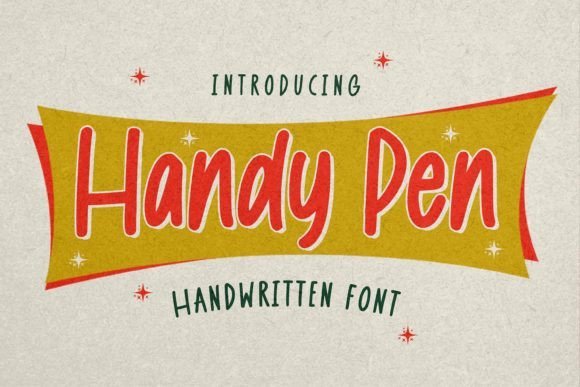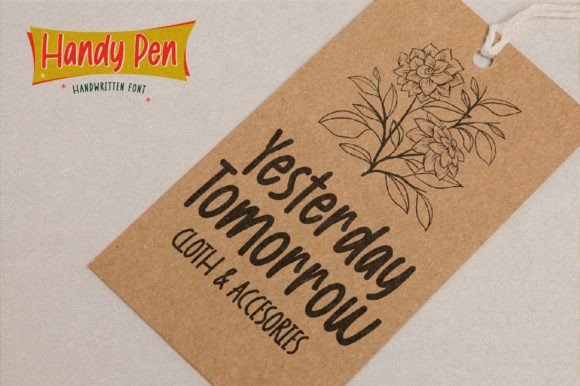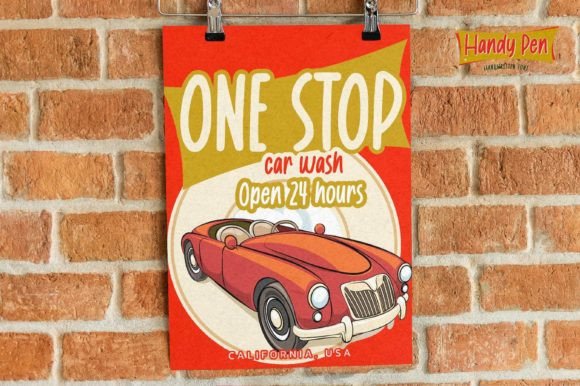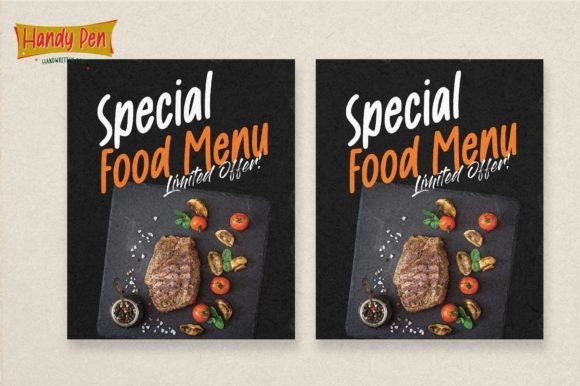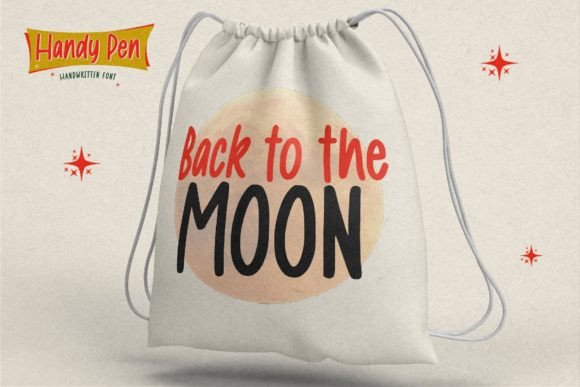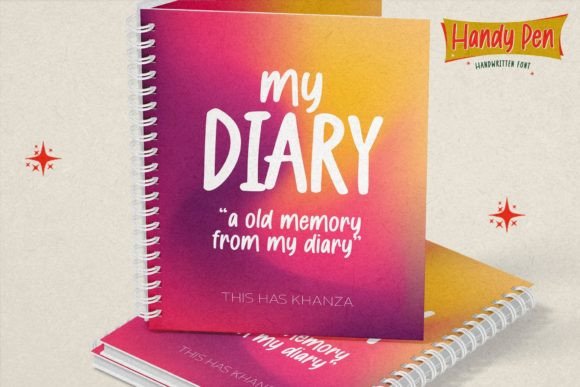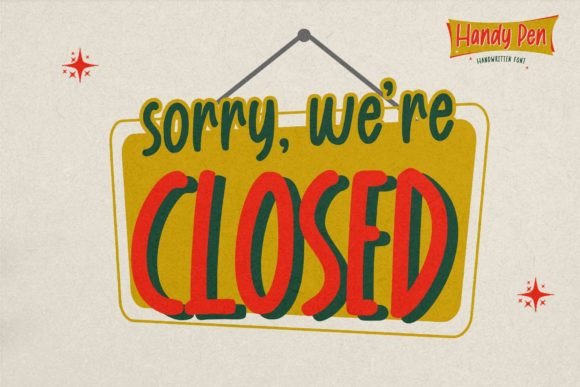
The Perfect Touch of Handwriting in Your Designs
Have you ever been brainstorming for hours, trying to find the perfect font to match your creative vision, only to end up with a generic, mass-produced look that lacks personality? We’ve all been there. But what if I told you there’s a font that can bring a breath of fresh air to your designs, adding a touch of authenticity and warmth that’s impossible to replicate with digital tools?
Meet Handy Pen Font, a naturally textured handwritten font that’s perfect for adding a personal touch to your next creative project. With its clear style and dramatic movement, Handy Pen Font is great for logos, printed quotes, invitations, cards, and more. Its charming, authentic, and relaxed characteristic makes it a valuable asset for designers looking to add a natural look to their text.
Handy Pen Font Key Features
- Font Family: Handy Pen Font
- Unique Characteristics: Handwritten, Brush Script, Distressed, Vintage, and Artistic look
- Font Style: Regular, Italic, Bold, and Bold Italic
Designer Review: Handy Pen Font
Overall, I’m a fan of the Handy Pen Font. It’s a unique, handwritten font that adds a touch of personality to any design project. Here are some things that really stand out:
- ✨ Expressive strokes: The font’s organic feel makes it perfect for creative projects that need a little extra flair.
- ✨ Friendly feel: Handy Pen Font is approachable and easy to read, even in smaller sizes.
- ✨ Versatility: The font comes in a range of weights and styles, making it easy to adapt to different design contexts.
That being said, there are a few limitations to consider:
- ⚠️ Limited legibility: While the font is easy to read in certain contexts, it can be a bit harder to decipher in smaller sizes or at a distance.
- ⚠️ Limited consistency: The font’s organic feel can sometimes make it difficult to maintain consistency across different lines or blocks of text.
Overall, I think Handy Pen Font is a great addition to any designer’s toolkit. While it may not be perfect for every project, its unique personality and expressiveness make it a great choice for creative, high-impact designs.
Getting the Most Out of Handy Pen Font
Use Handy Pen Font for titles, headings, and short paragraphs where you want to add a touch of whimsy and personality.
Combine Handy Pen Font with other fonts to create a unique and eye-catching design.
Handy Pen Font is perfect for:
Blog titles and headings
Social media graphics
Children’s book illustrations
Alternatives to Handy Pen Font for Designers
Great Vibes is a beautiful, handwritten font that works well for titles, headings, and quotes. It’s perfect for creating a fun, casual atmosphere in designs. Great Vibes has a more flowing and expressive feel compared to Handy Pen Font, which makes it ideal for projects that require a more dynamic and emotive tone.
Carolyna Pro is a modern, elegant script font that’s perfect for luxury brands, fashion, and high-end designs. It’s more refined and polished than Handy Pen Font, making it suitable for projects that require sophistication and glamour. Carolyna Pro is ideal for creating a sense of luxury and refinement in designs.
Alex Brush is a elegant, handwritten font that’s perfect for creating a sense of warmth and personality in designs. It’s more delicate and refined compared to Handy Pen Font, making it ideal for projects that require a touch of sophistication and elegance. Alex Brush is perfect for designs that need a sense of storytelling and emotion.
Dancing Script is a lively, handwritten font that’s perfect for creating a sense of energy and playfulness in designs. It’s more dynamic and expressive compared to Handy Pen Font, making it ideal for projects that require a fun and youthful tone. Dancing Script is perfect for designs that need a sense of movement and excitement.
Unique Designs with Handy Pen Font
Project 1: Hand-Drawn Journal
Create a one-of-a-kind journal that combines the organic feel of handmade art with the modern touch of digital design.
To use Handy Pen Font in this project:
- Choose a digital drawing tool, such as Adobe Illustrator or Procreate, and select Handy Pen Font as your text font.